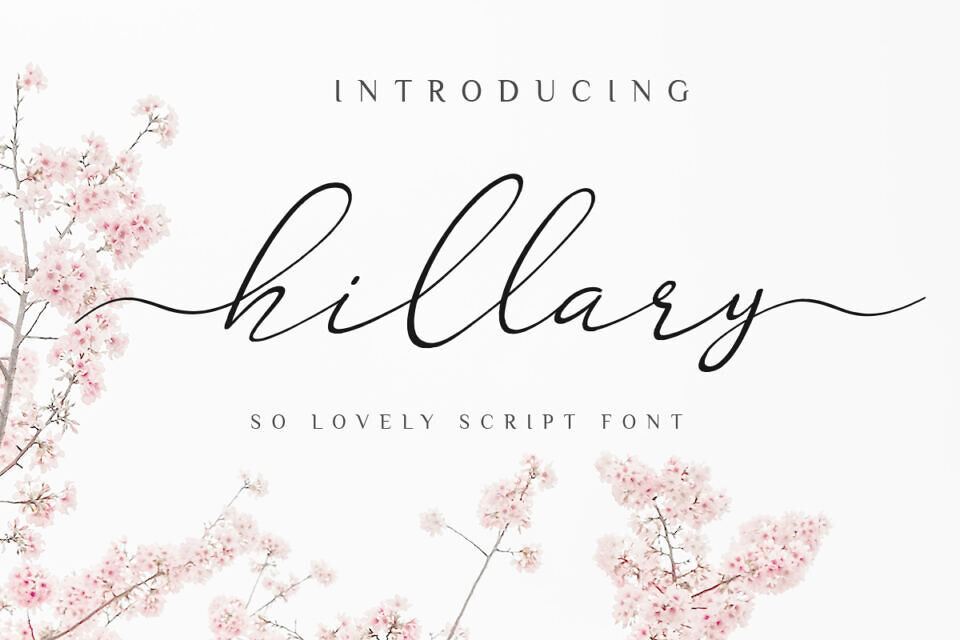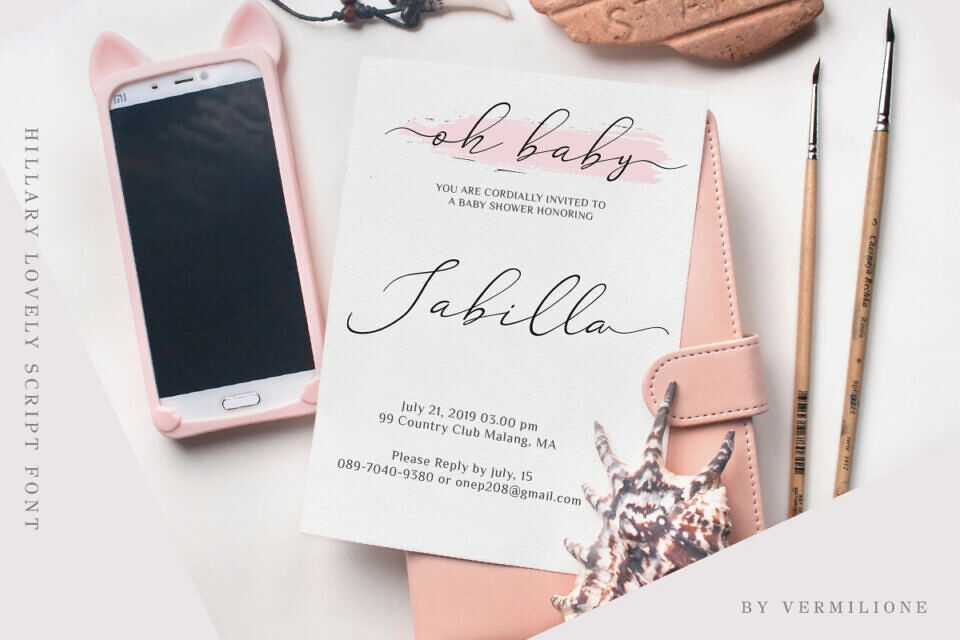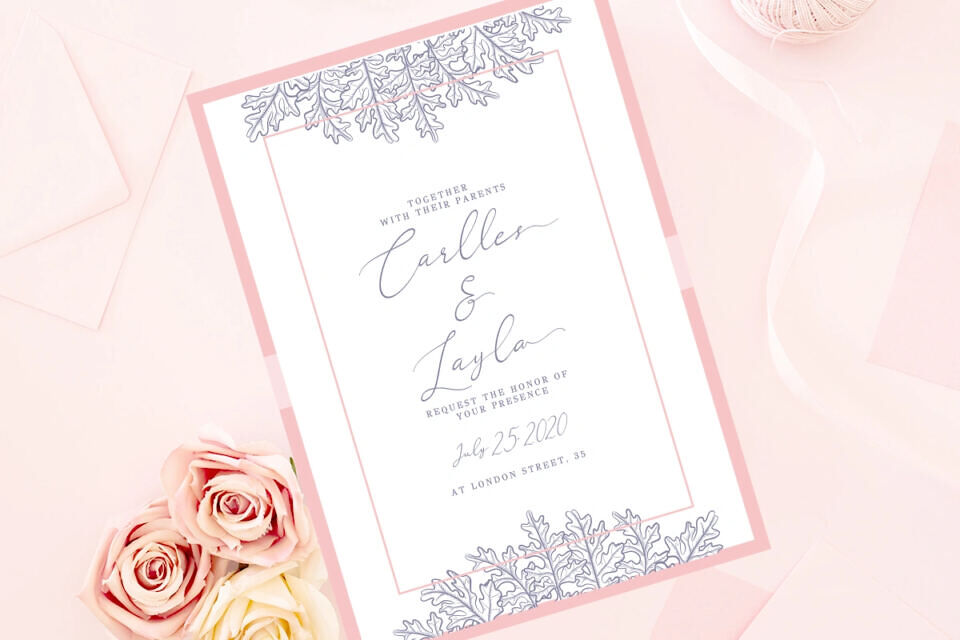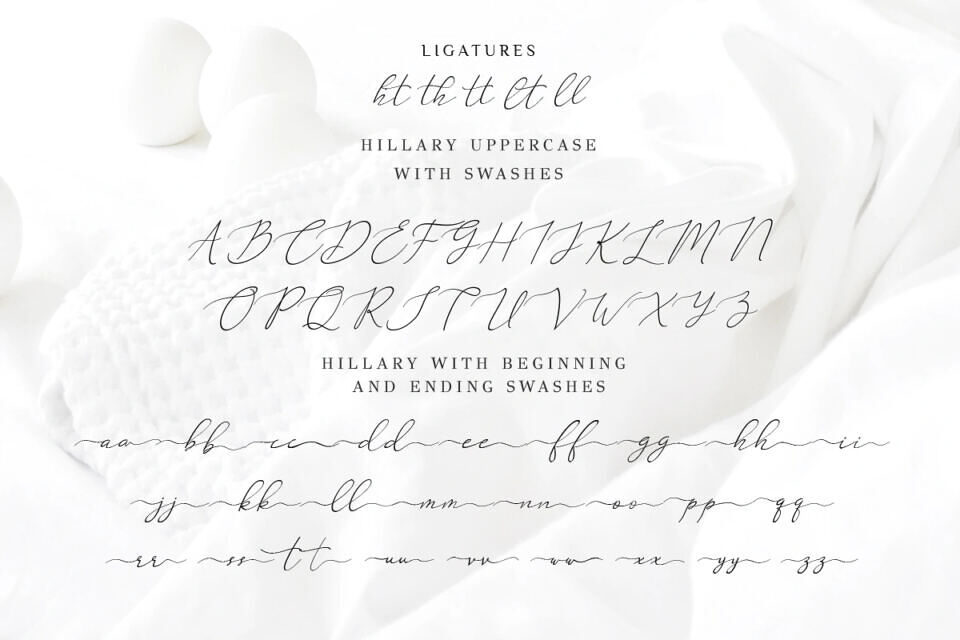
Hillary is a modern, elegant calligraphy font with a handwritten feel. It features a complete set of glyphs, making it ideal for branding, weddings, and cards.
The font includes uppercase and lowercase letters, symbols, numbers, and punctuation, as well as ligatures and decorative swashes to connect words and letters, perfect for invitations and monograms.